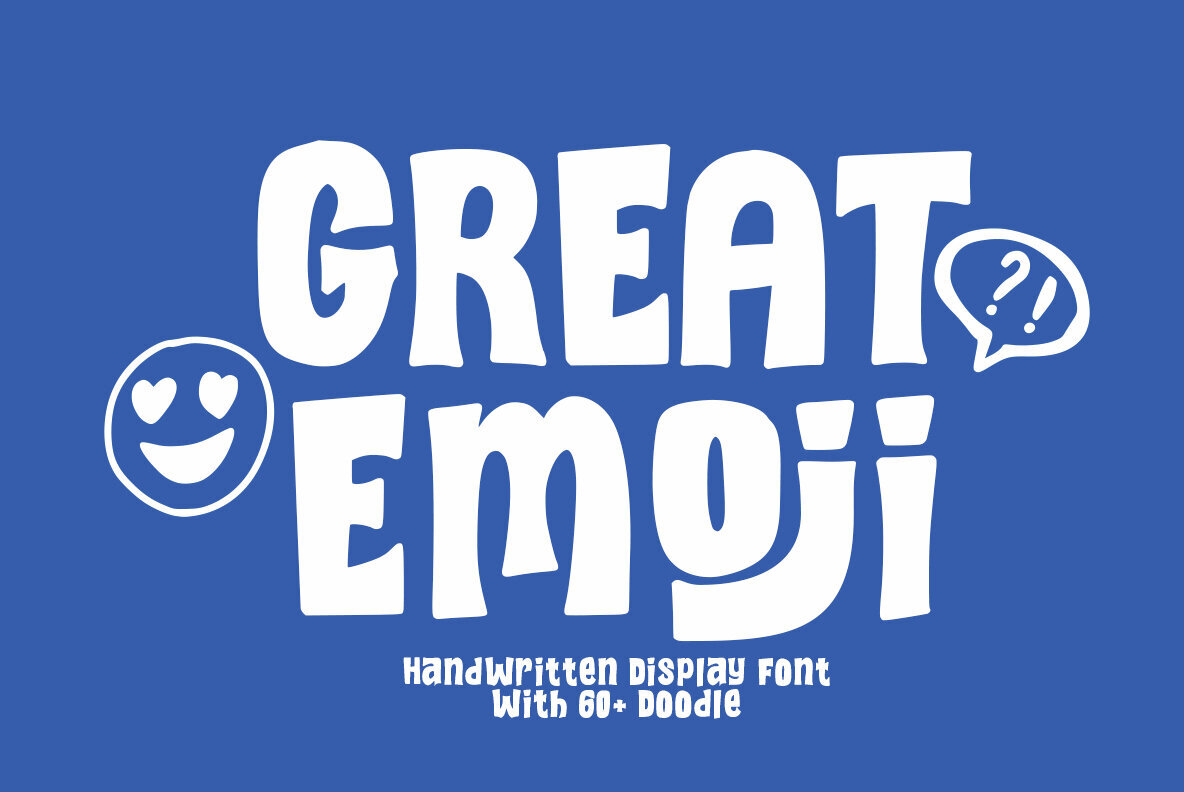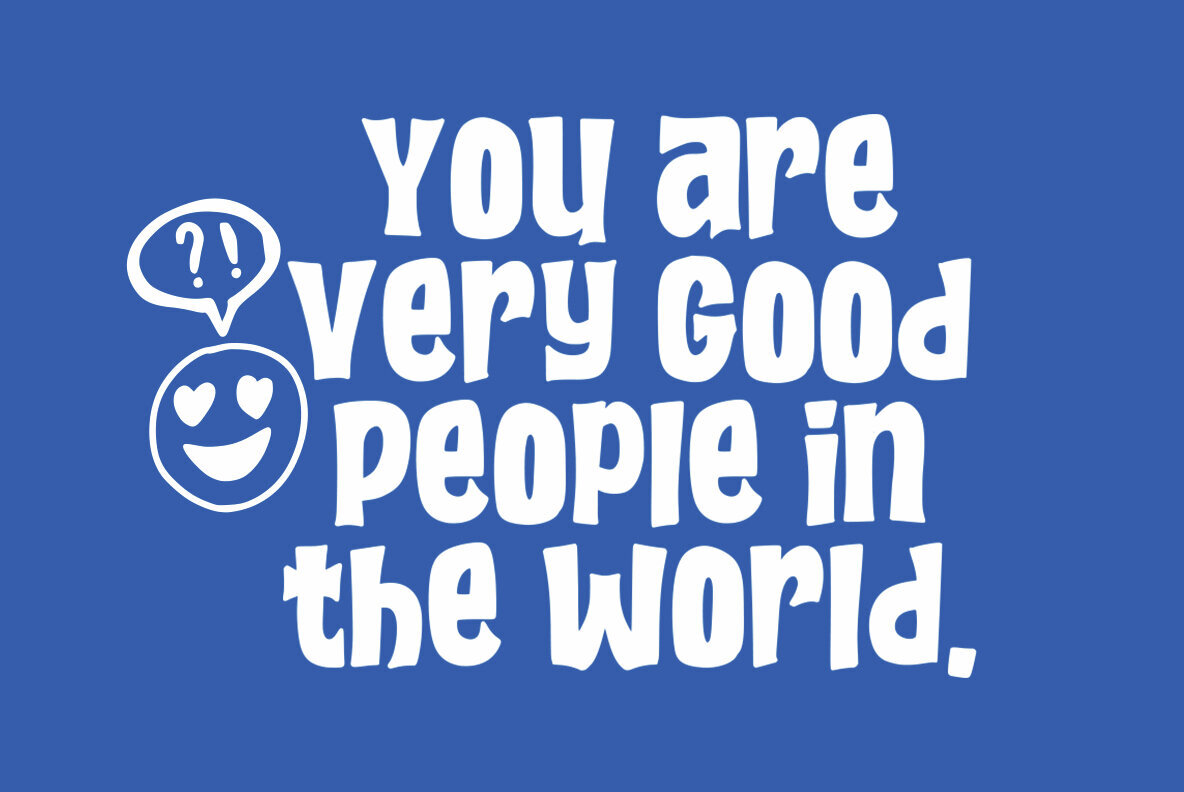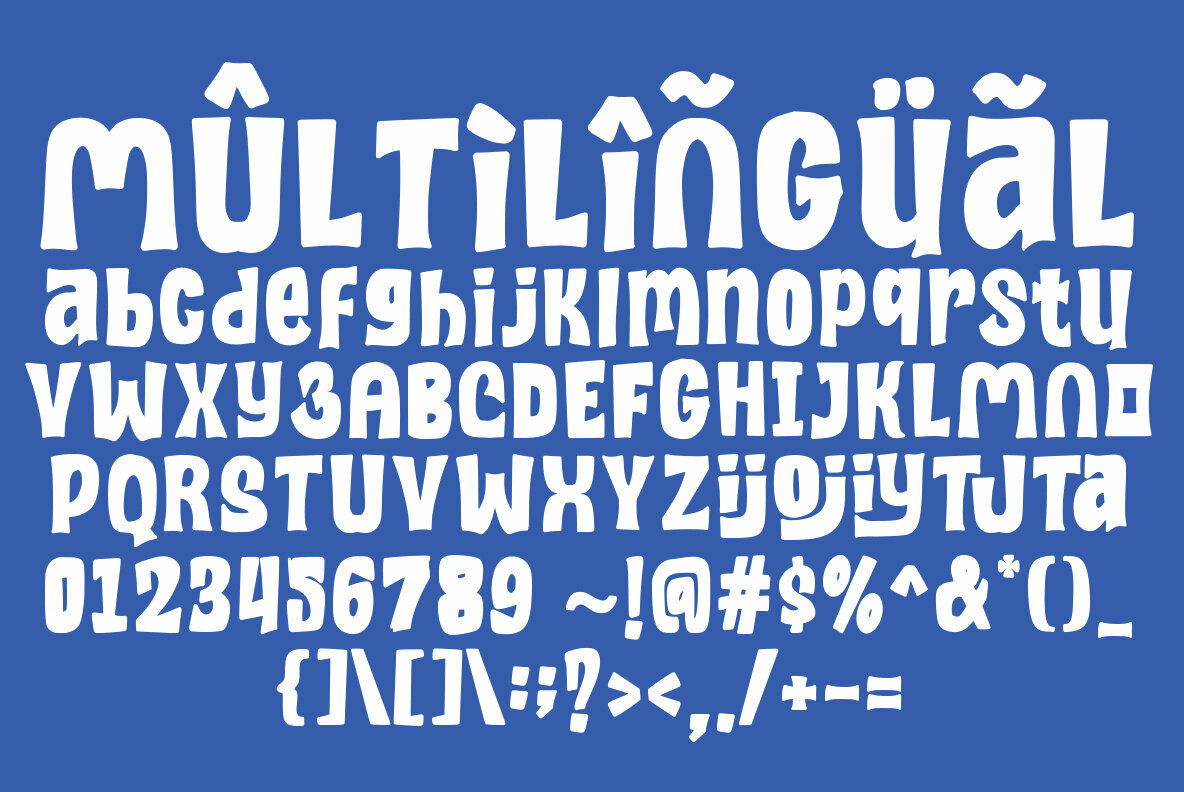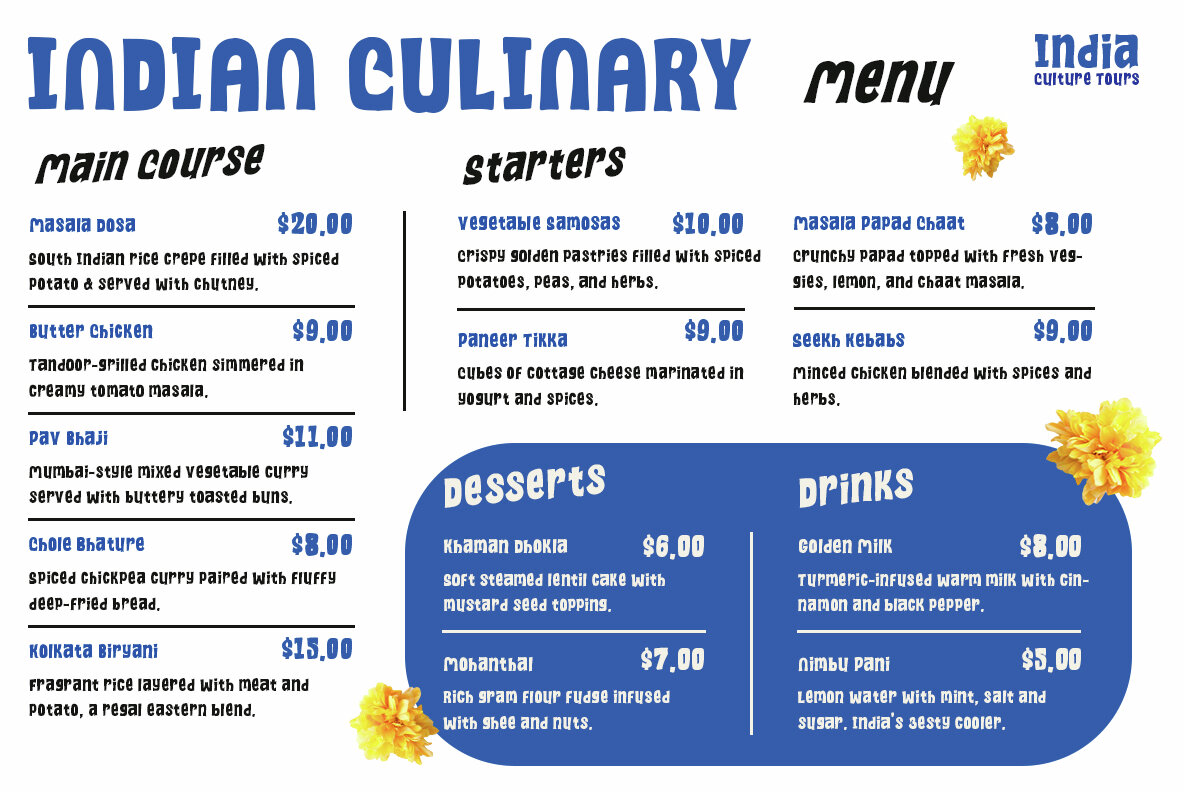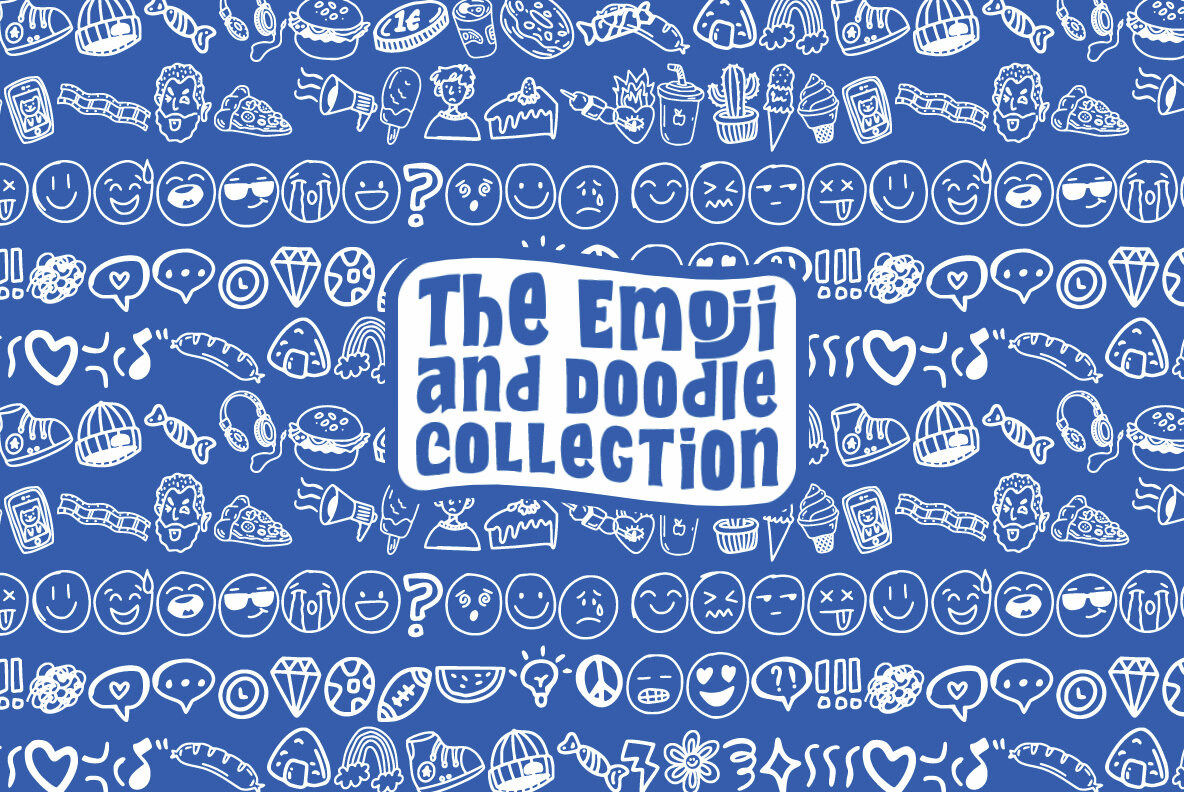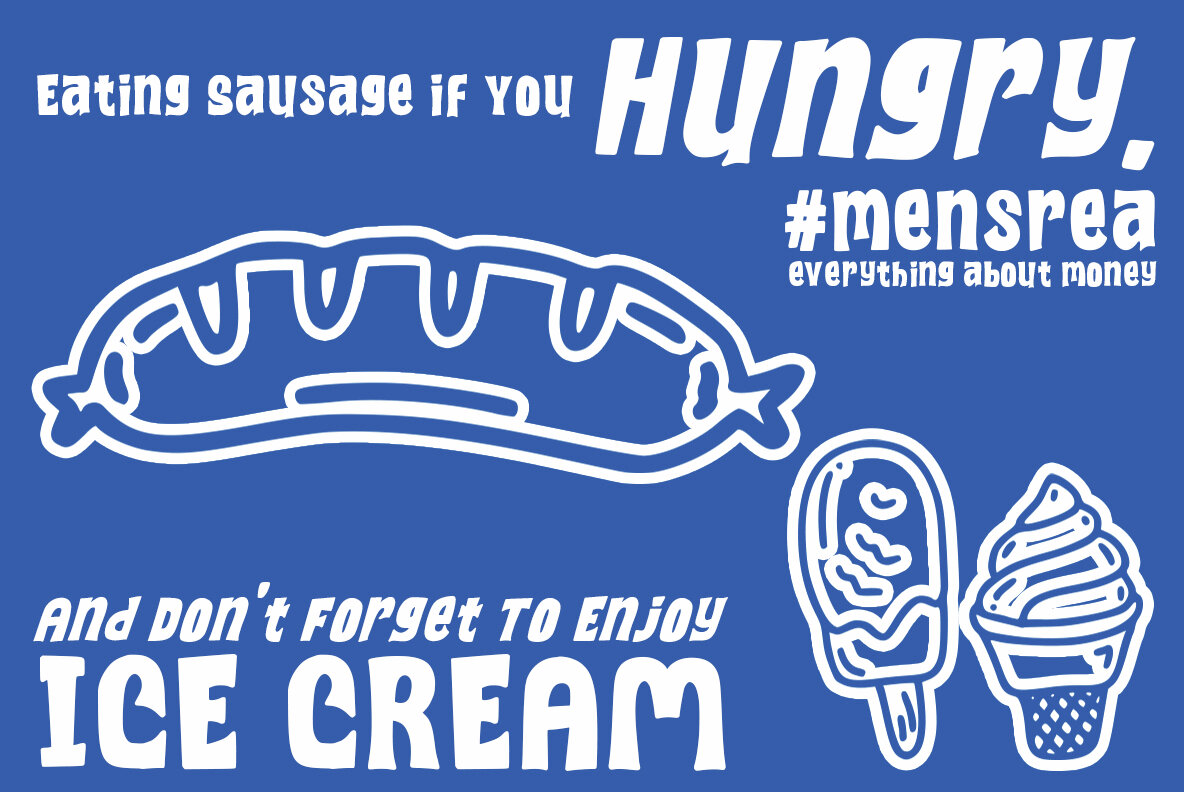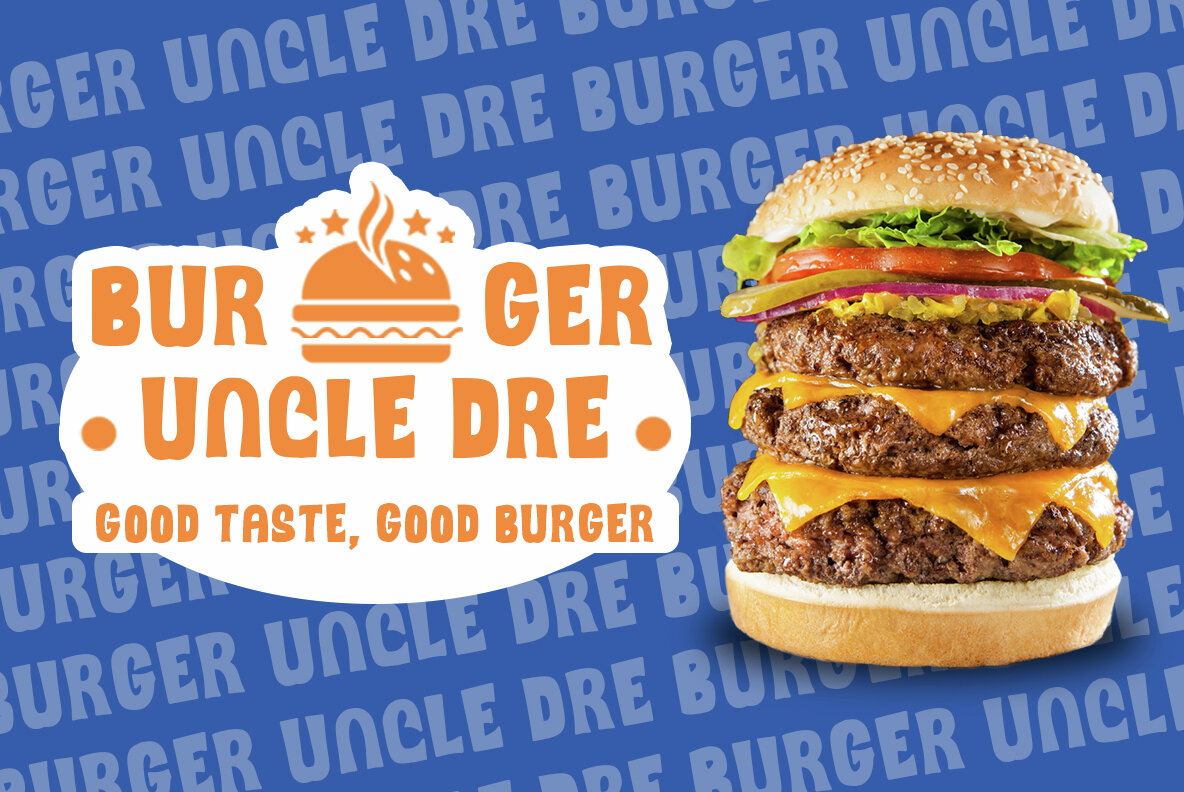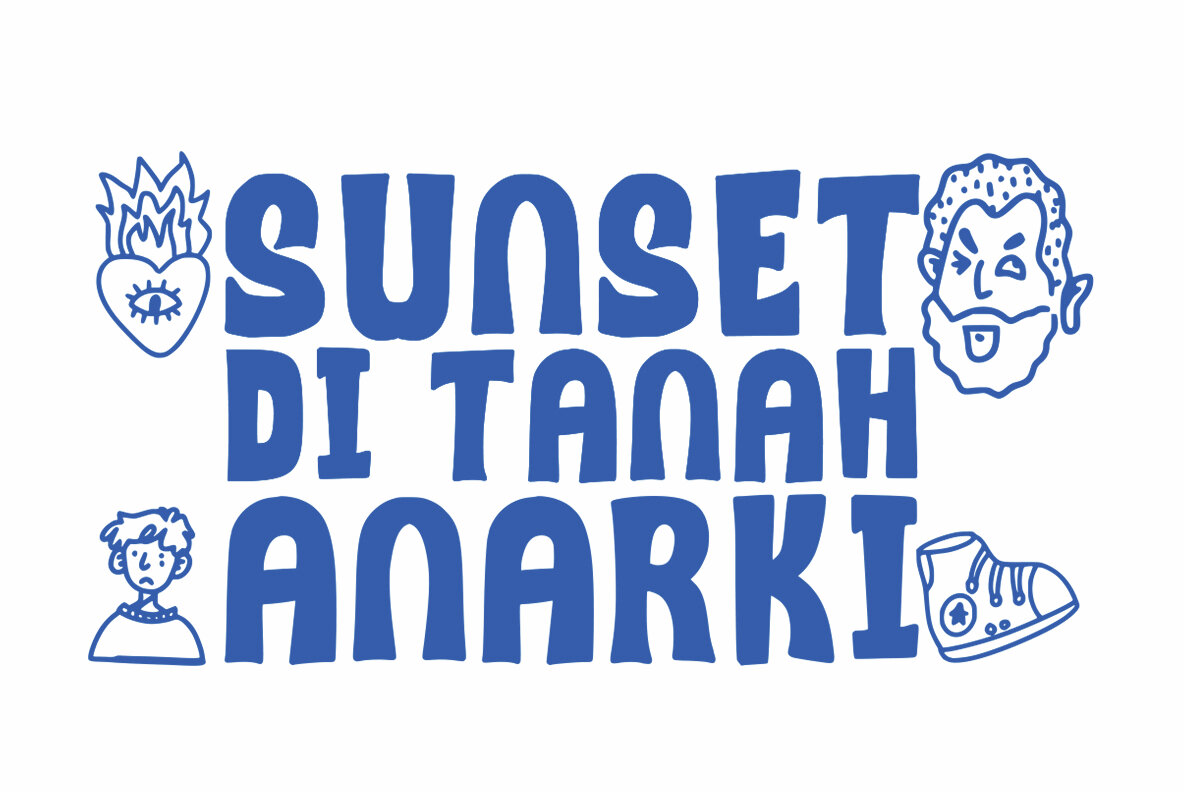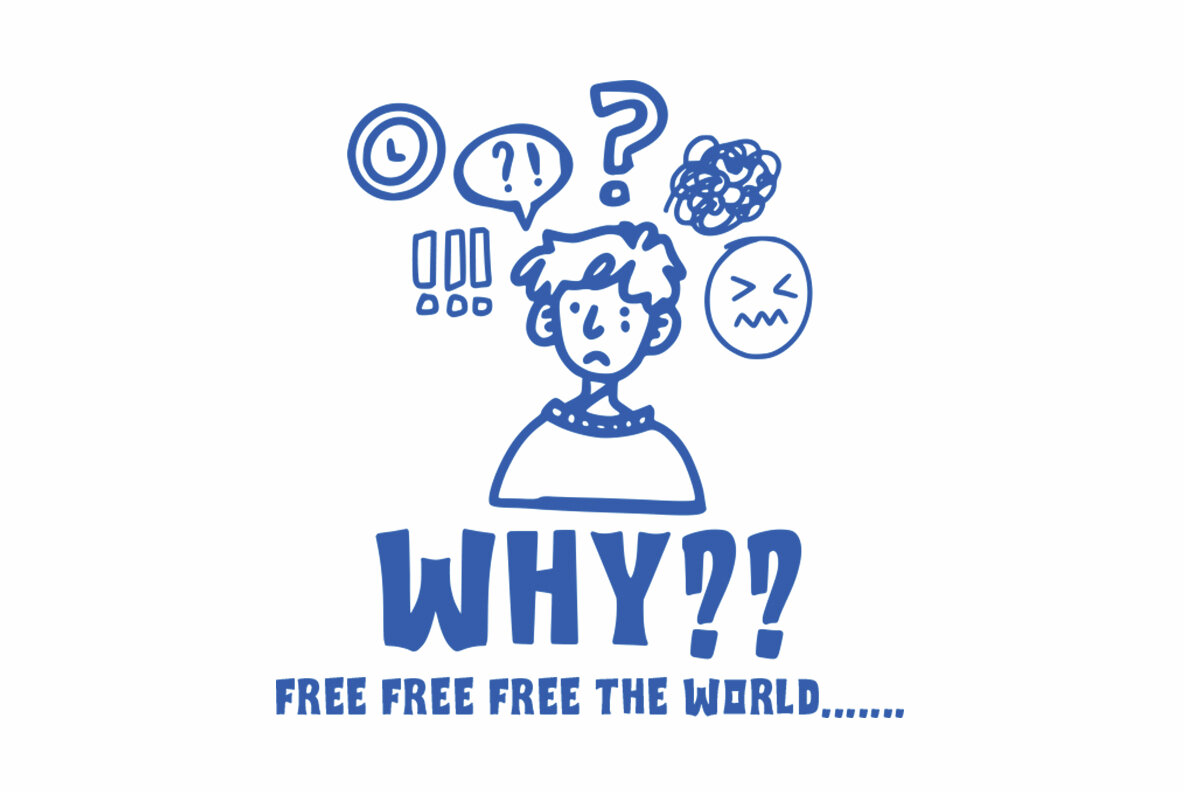
Great Emoji Font
Great Emoji brings vivid character and a cheerful tone to any project. Its handwritten display style offers bold, rounded letterforms with a playful, casual feel—perfect for posters, children’s books, social media graphics, and packaging. This font offers both visual excitement and a friendly personality, making it ideal for designs that benefit from a lively and lighthearted touch. With three distinctive styles, Great Emoji serves as an expressive toolkit for adding warmth and fun to your creative work. Each detail is crafted to bring a sense of joy and playfulness that stands out in both digital and print formats.Great Emoji Handwritten Display Font